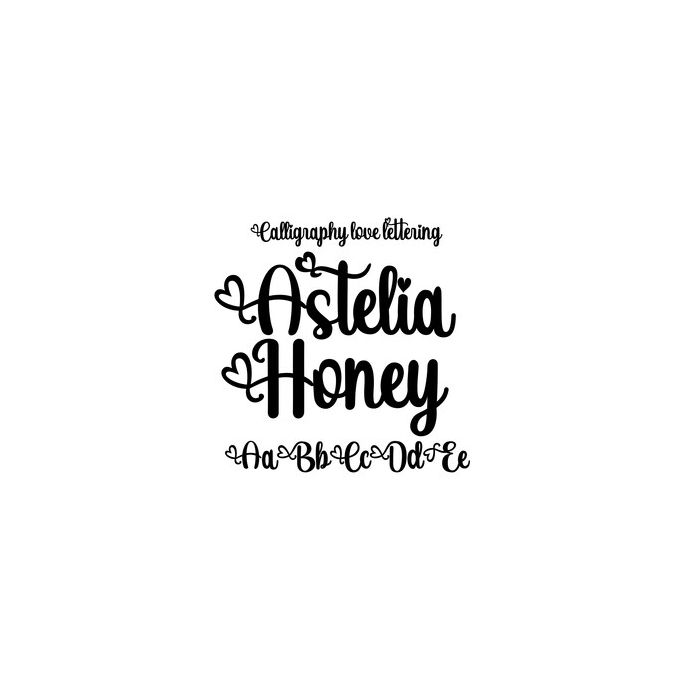
Astelia Honey The handwriting style is beautiful and passionate, full of love. This is a beautiful product with the attraction of love, so it is uniformly used in today's design models. You can see and match with your big imagination!